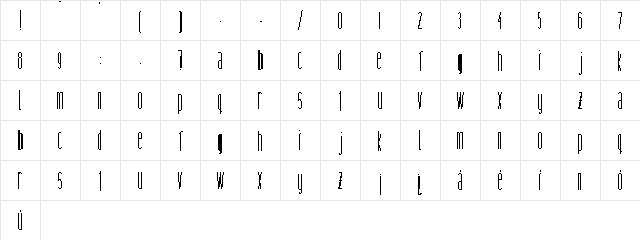
linnette Regular Free Font
linnette Regular
Designer: estoeslomio
Design Context for linnette
linnette is a composed and adaptable typeface that performs quietly and consistently across a wide range of design contexts.
Pro Tip: Use linnette in both headline and body roles to test its range before committing to a single application.